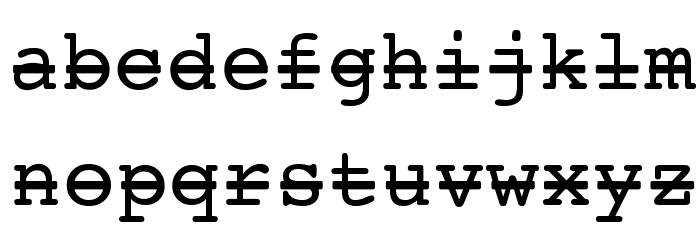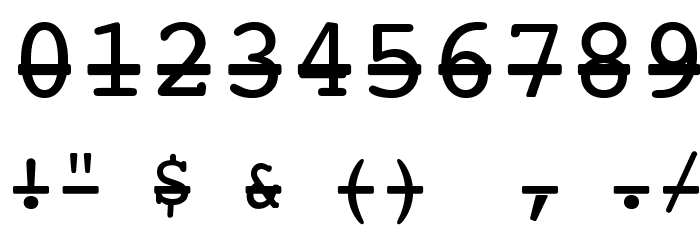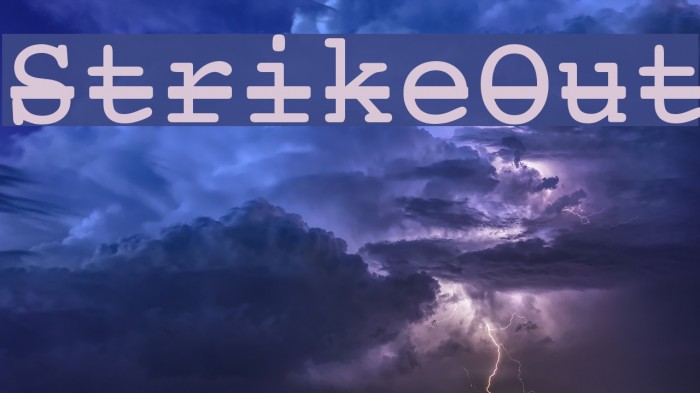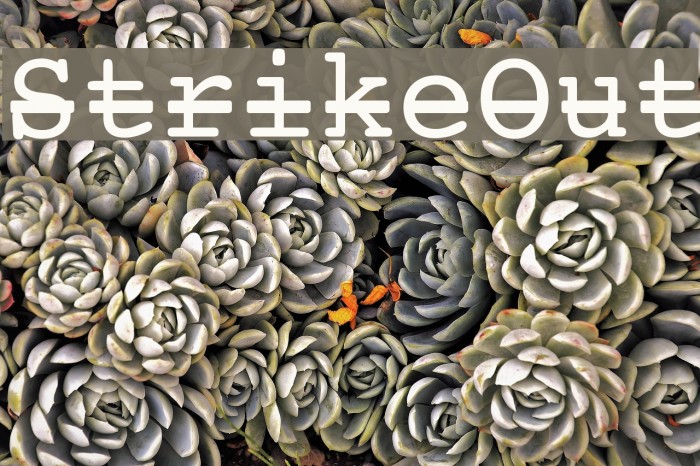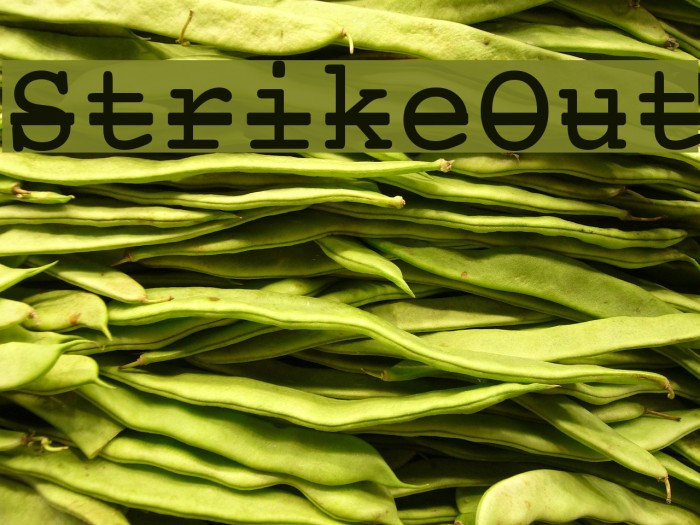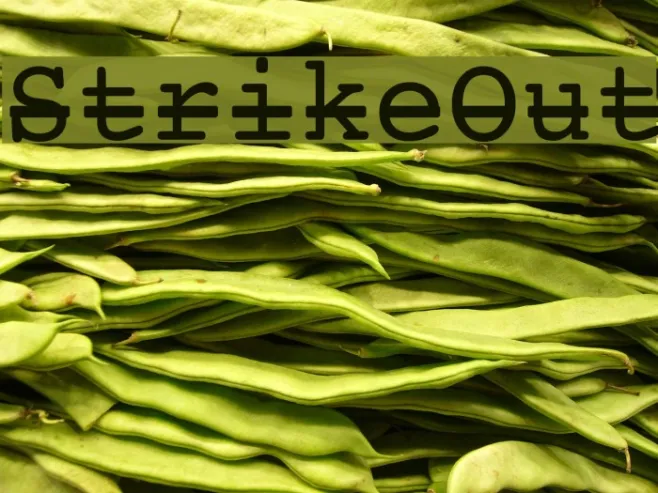
StrikeOut Font
This font features a bold and striking design with a unique strikethrough effect on each character, giving it a distinctive and modern appearance. The characters are well-defined with a consistent stroke width, providing a clean and structured look. The uppercase and lowercase letters maintain a uniform style, while the numerals and special characters are equally bold and impactful. The font's design is both eye-catching and versatile, making it suitable for a variety of creative applications.
A bold, modern font with a unique strikethrough effect on each character.
- Proposed Projects: Ideal for branding, advertising, poster design, and any project requiring a bold statement.